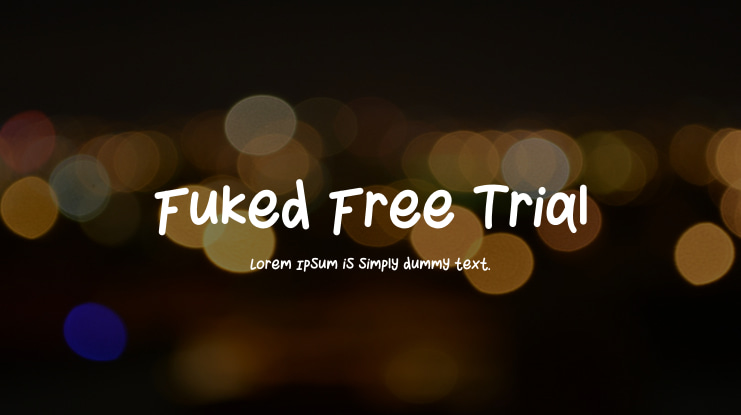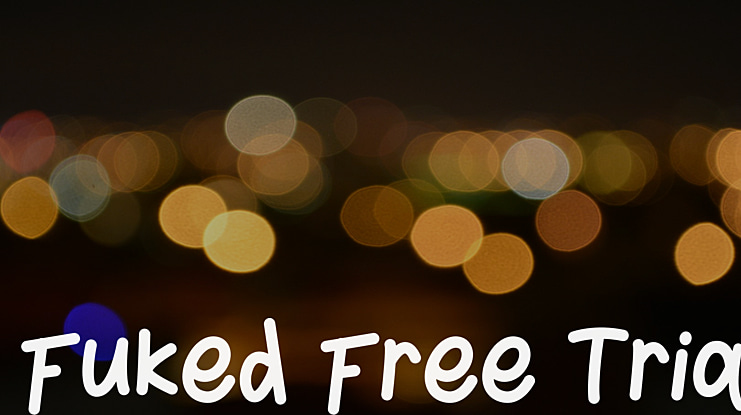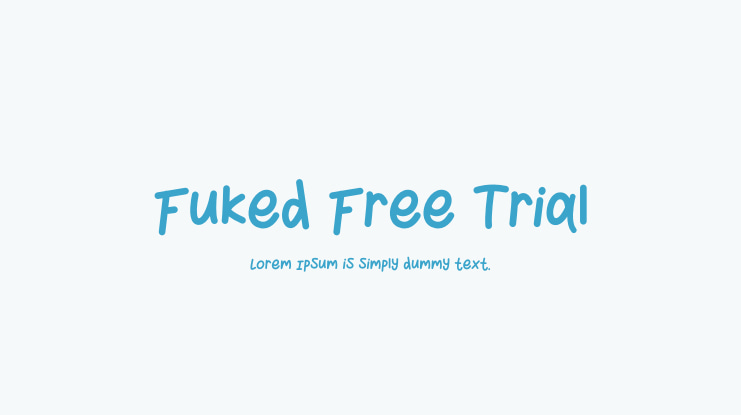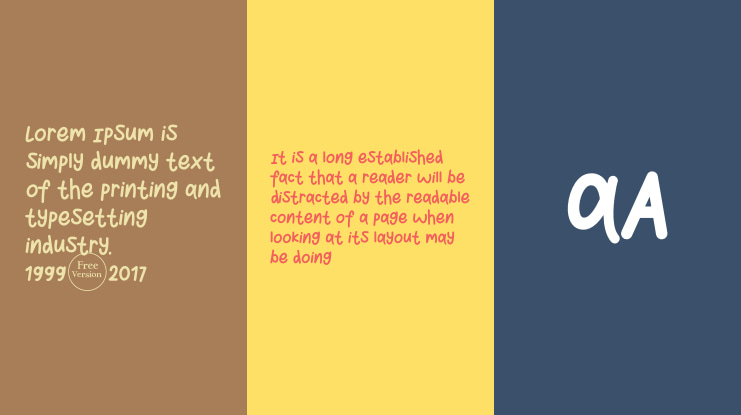
Fuked Free Trial Font
Fuked is a playful and cute display font. It embodies joy and authenticity and is the perfect choice for any children theme activity or school project. Full Version Download Here :